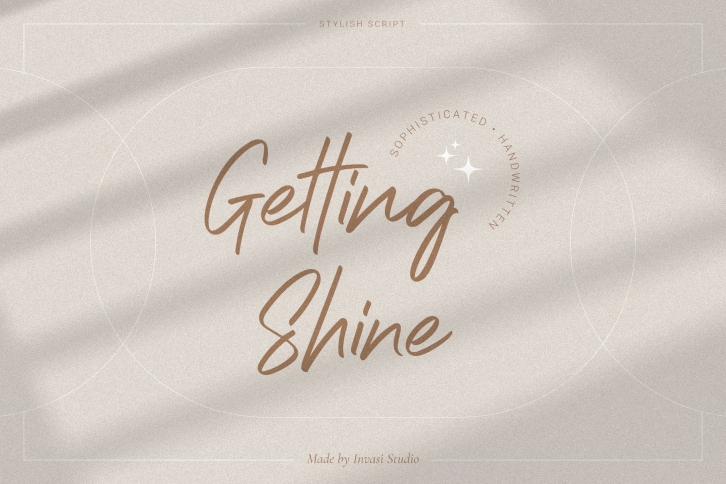
Getting Shine born from Handwriting style combines stylish and modern glyph with an elegant look; delivering a script hand draw that is guaranteed to add an eye-catching suitable for your quotes, logo designs, brand imagery, product packaging, merchandise & social media posts.
Getting Shine Features:
- Multi-language